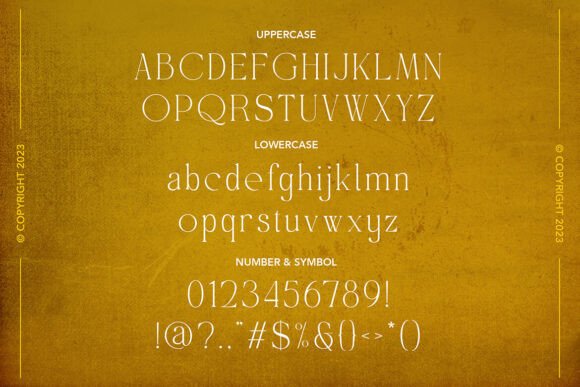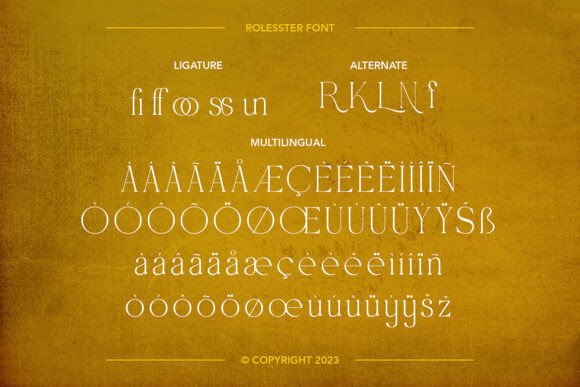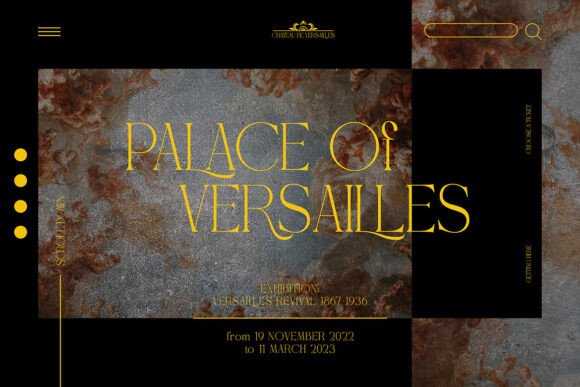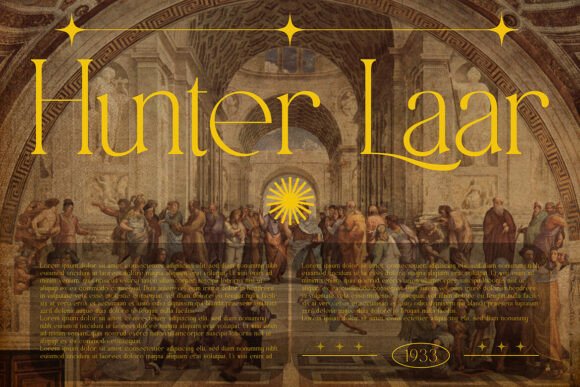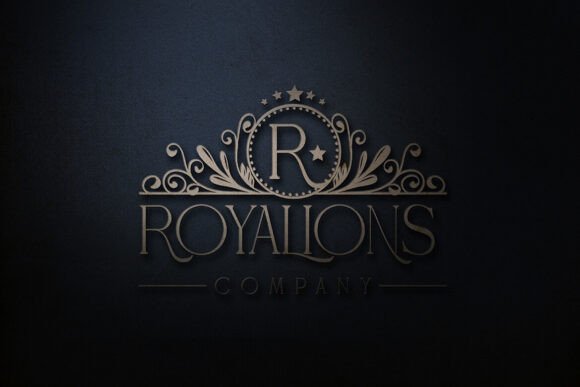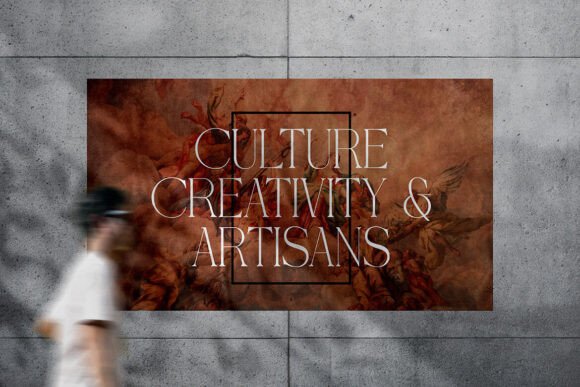
Introduction to Rolesster Font Font
Fonts play a crucial role in design, and the Rolesster Font font is a typeface that brings both character and versatility to any project. Whether you’re working on a branding project, a website, or a print design, the Rolesster Font font offers a unique style that can elevate your work.
Introducing Rolesster, a distinguished display serif font, designed to exude an air of elegance and allure.
Its finely honed curves and unique serifs are masterfully crafted to infuse a sense of luxury into your designs Rolesster becomes the perfect companion for sophisticated invitations, high-end branding projects, refined editorial layouts, and bespoke marketing materials.
The Rolesster Font font is more than just a typeface – it’s a design tool that helps you communicate your message with style and clarity. Its unique character set and versatile design make it suitable for a wide range of applications, from elegant invitations to bold headlines.
With its carefully crafted letterforms and balanced proportions, the Rolesster Font font ensures readability and visual appeal across all mediums.
What makes Rolesster Font font special?
The Rolesster Font font stands out with its unique design, exceptional readability, and versatility across various design applications.